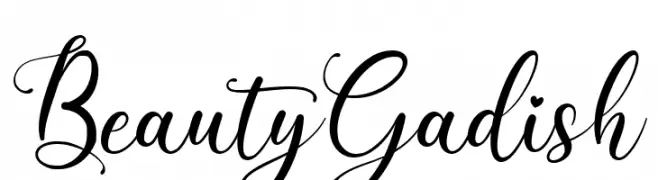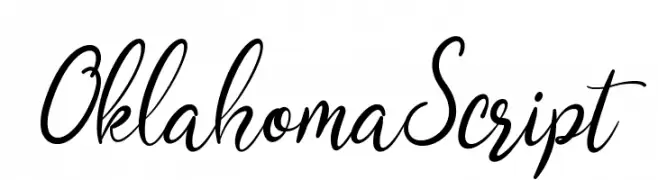
A fluid and graceful script font with sweeping curves and delicate strokes.
An elegant, flowing script font with graceful curves and smooth lines.
An elegant, flowing script font with graceful loops and swashes.
A graceful, handwritten script font with elegant curves and flowing lines.
A modern, elegant script font with flowing cursive letters and graceful swashes.
A graceful and ornate script font with flowing lines and high contrast.
An elegant and fluid cursive script font with interconnected letters and graceful curves.
An elegant script font with flowing, cursive letterforms and graceful flourishes.
An elegant, flowing script font with graceful loops and swashes.
An elegant, flowing script font with graceful, cursive strokes.